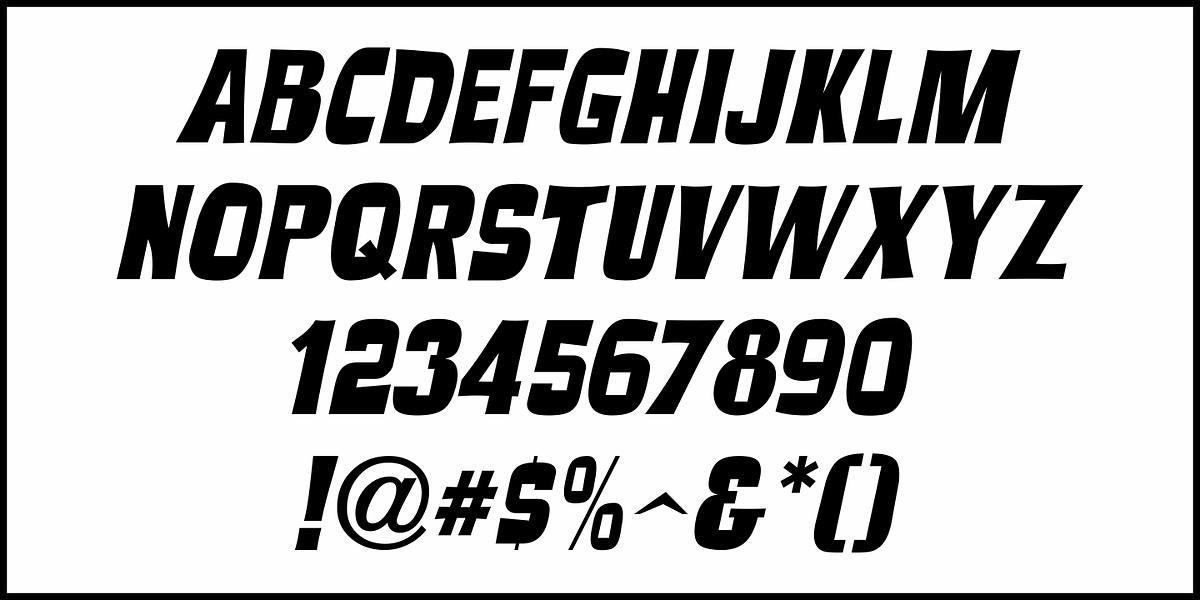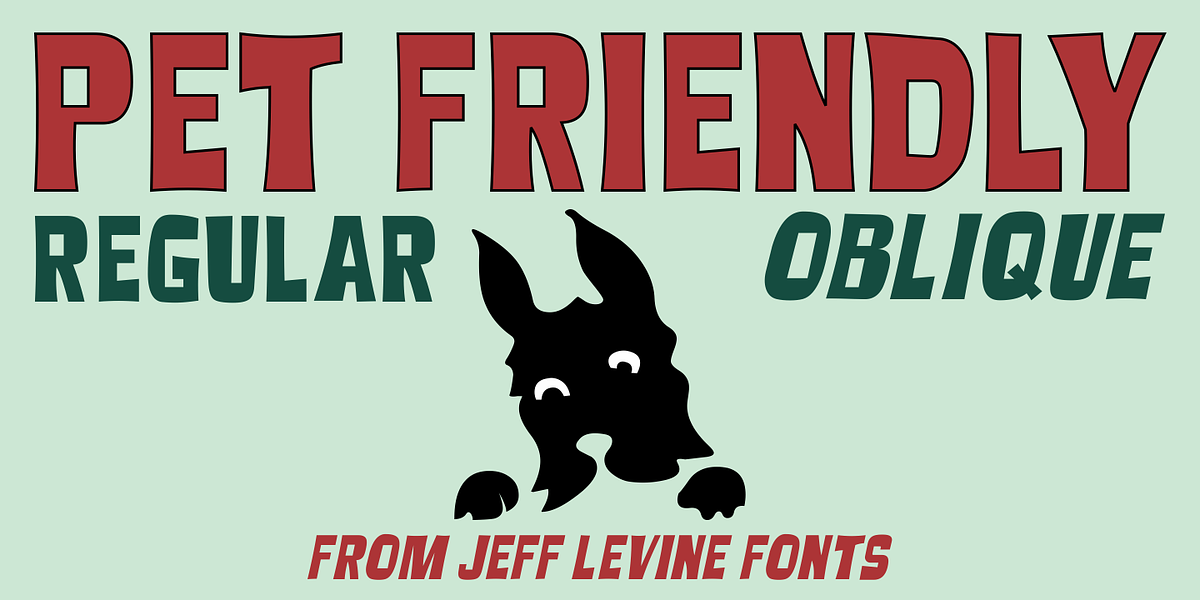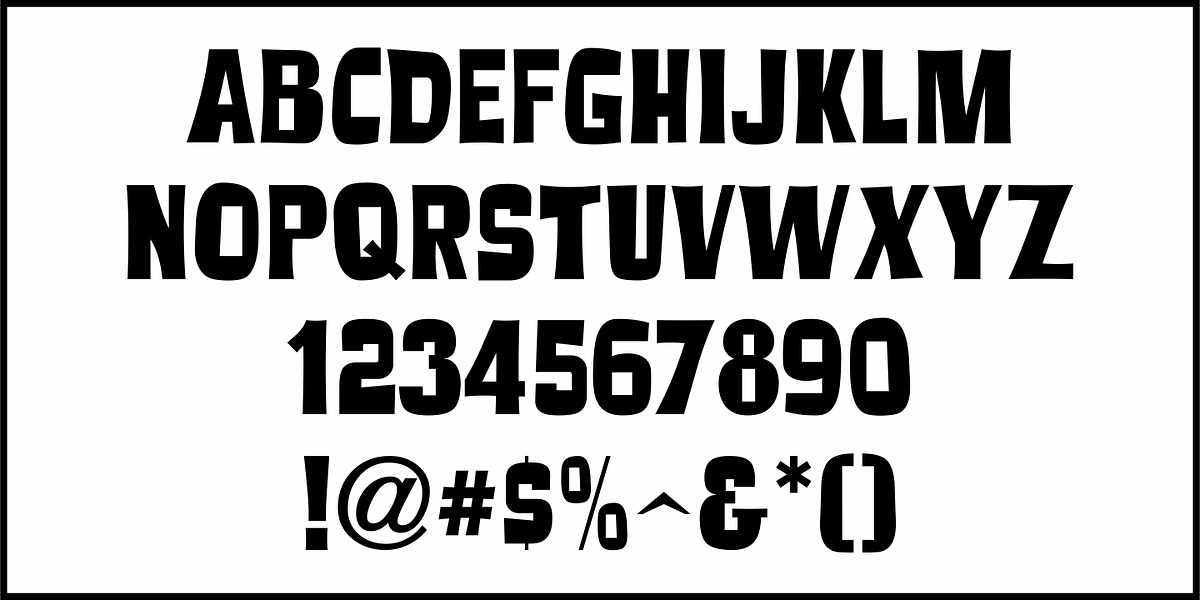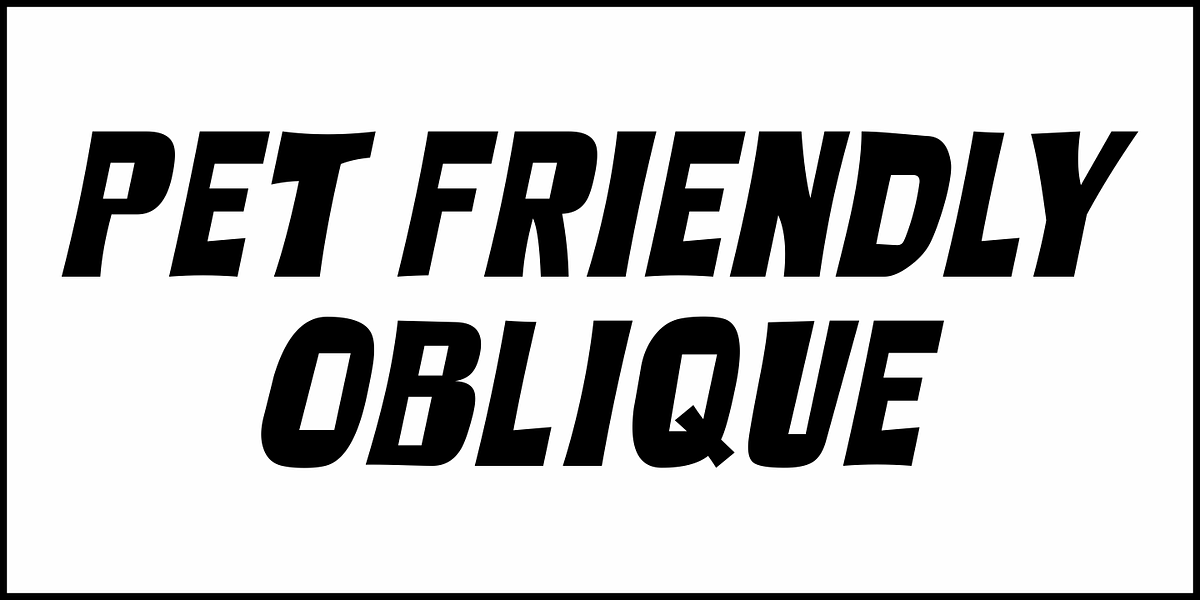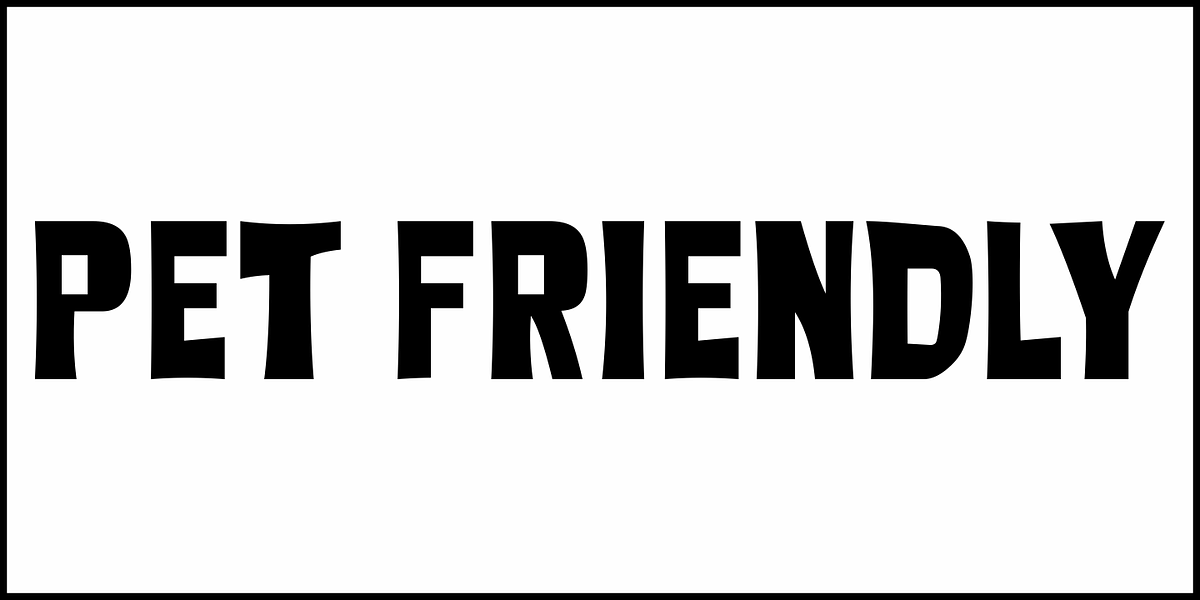
Pet Friendly JNL
The Sept. 4, 1961 issue of Boxoffice Magazine carried an ad for "Greyfriars Bobby: The True Story of a Dog". The poster featured hand lettering in a casual free form style.
This inspired the digital typeface Pet Friendly JNL, which is available in both regular and oblique versions.